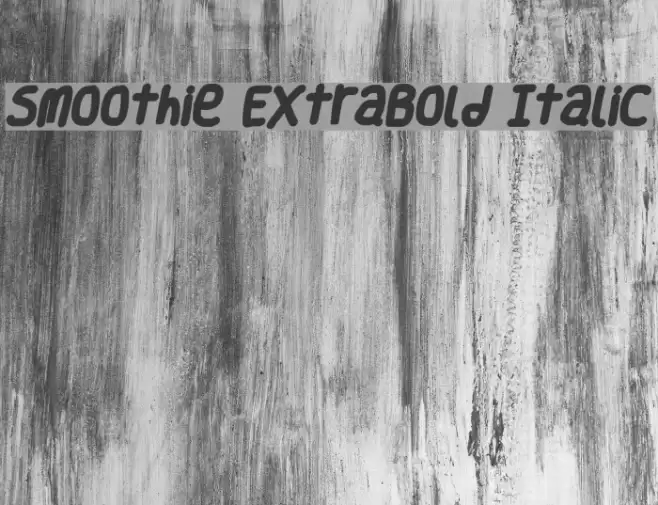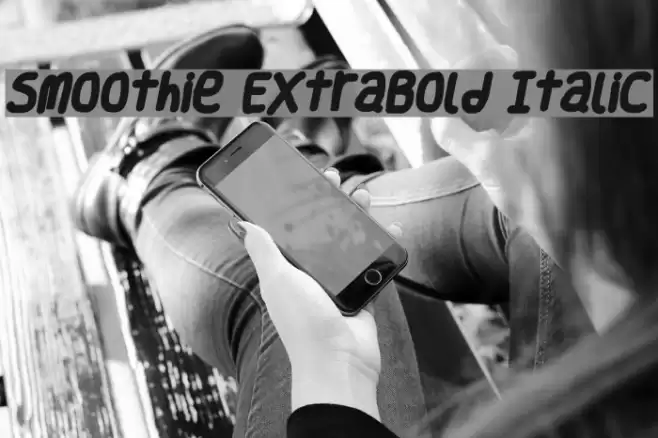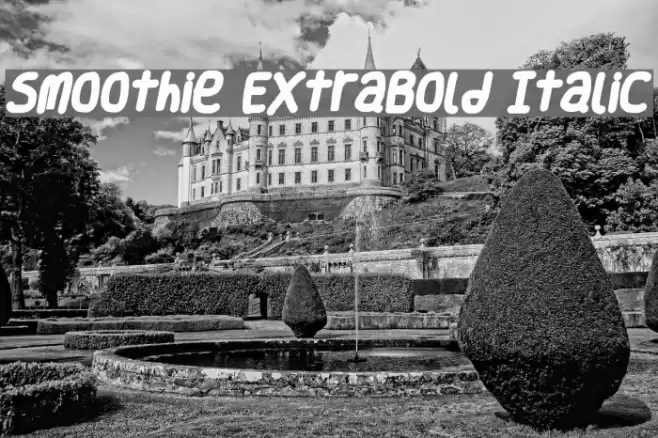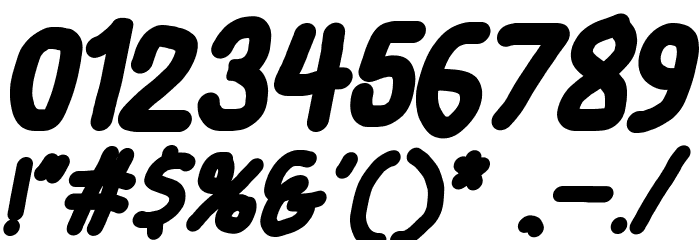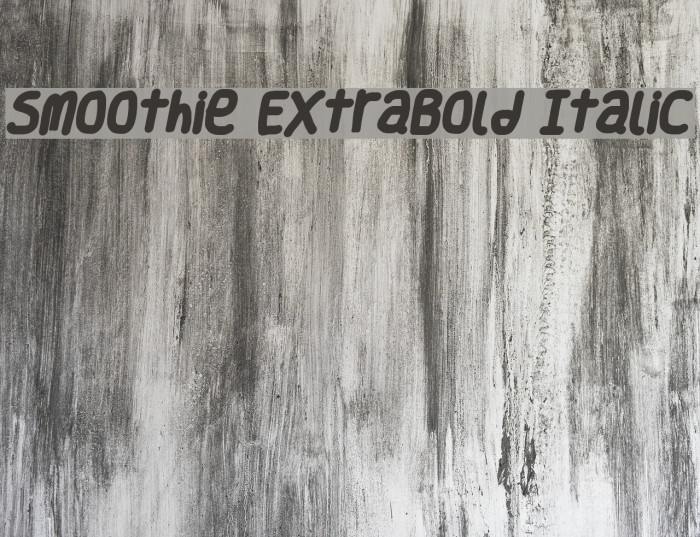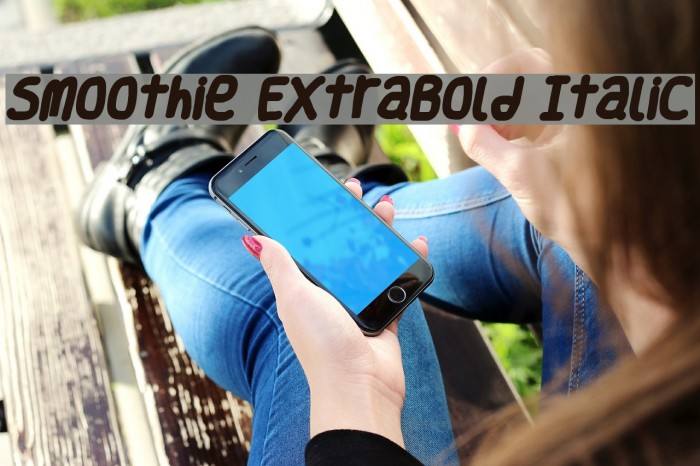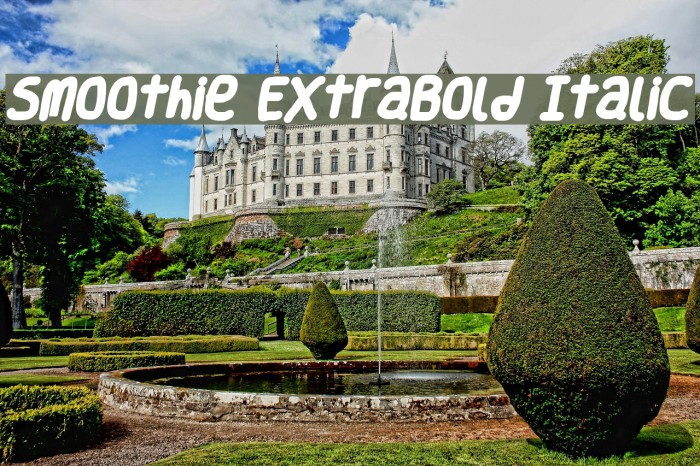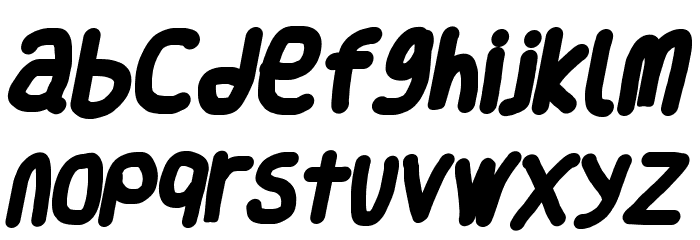
Smoothie ExtraBold Italic Font
Smoothie ExtraBold Italic Description
This font features a bold and playful style with a smooth, flowing appearance. The characters are rounded and slightly slanted, giving it an energetic and dynamic feel. The strokes are thick and consistent, providing a strong visual impact. The overall design is informal and friendly, making it suitable for creative and casual applications. The uppercase and lowercase letters maintain a cohesive look, while the numbers and special characters are designed to match the font's lively aesthetic.
A bold, playful, and smooth italic font with a dynamic and friendly appearance from Uncategorized fonts.
- Overall Style: Playful